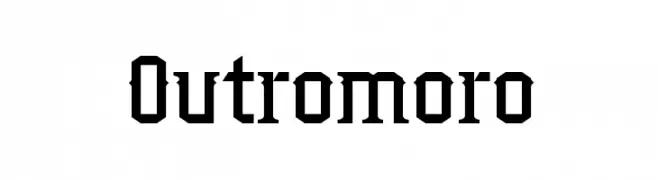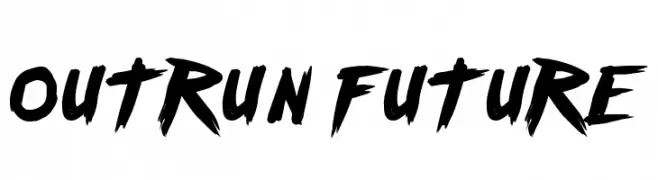
A bold, futuristic font with semi-condensed, geometric letterforms.
A sleek, semi-italic font with a modern, dynamic style.
A sleek, italicized font with a futuristic and dynamic style.
A bold, geometric font with unique cutouts and a retro-futuristic style.
A bold, geometric font with a futuristic and modern aesthetic.
A bold, angular font with a geometric, modern design.
A dynamic, brush-style font with sharp, angular strokes and a bold presence.
A bold, dynamic font with sharp, angular edges and a brush-like texture.
A bold, italicized font with a futuristic, dynamic style and high contrast strokes.